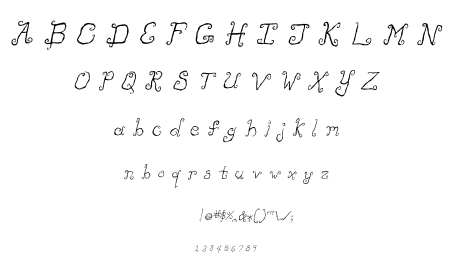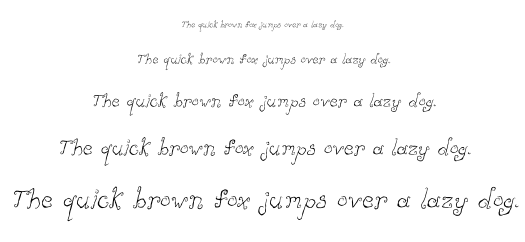
Like Cockatoos Font
i was inspired by the cure for this one and decided to name it after my favorite song by them… full caps, lower, and punctuation in medium, condensed, italic, and bold for your designing pleasure… have fun!!!